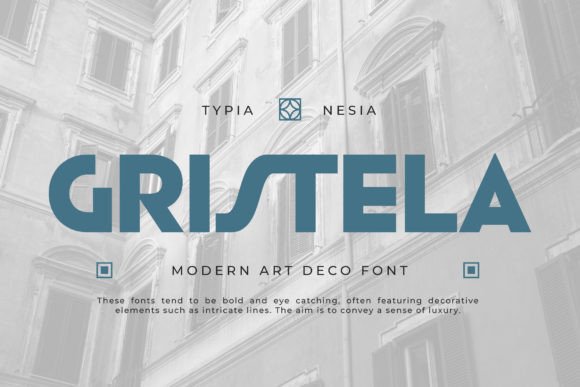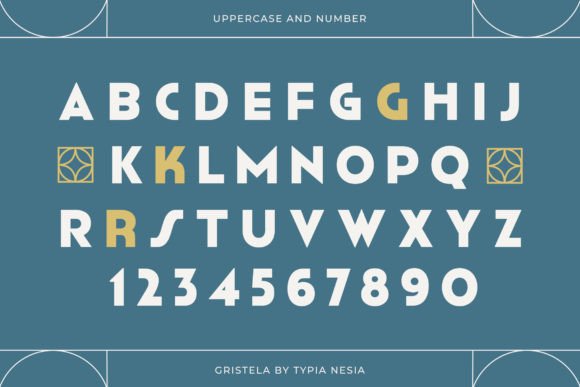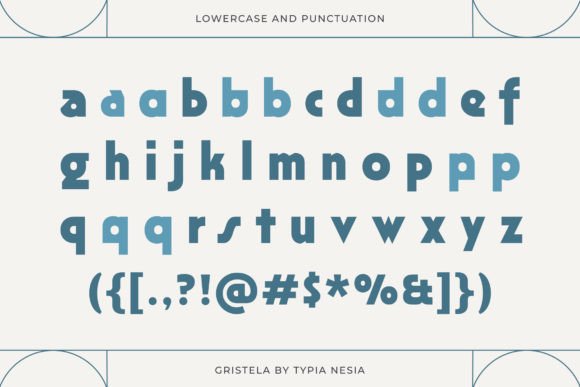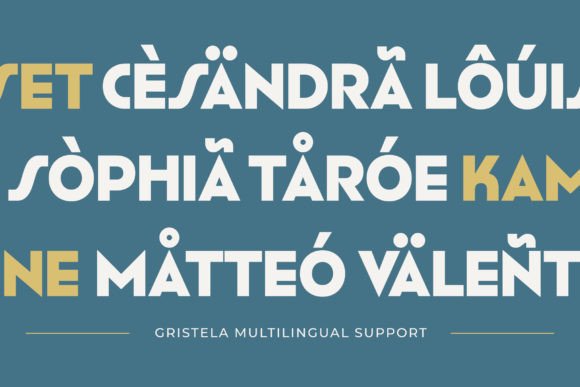
Gristela Font: Modern Art Deco Typography for Elegant Branding
About the Gristela Font
Step up your design game with Gristela Font, a font that exudes confidence and style. Gristela is a modern art deco font that combines the boldness of the Art Deco movement with contemporary design elements. Its stylish and geometric design brings a touch of Modern and sophistication to any project, such as branding, packaging, editorial design, event invitations, posters, product advertisements and any project to require a touch modern and bold. Its versatile style ensures it looks stunning in both print and digital formats, providing a polished and contemporary look to logos, headlines, and body text. Gristela is rich in features to support your creative needs.
Gristela Font Usage Examples
Gristela Font Example